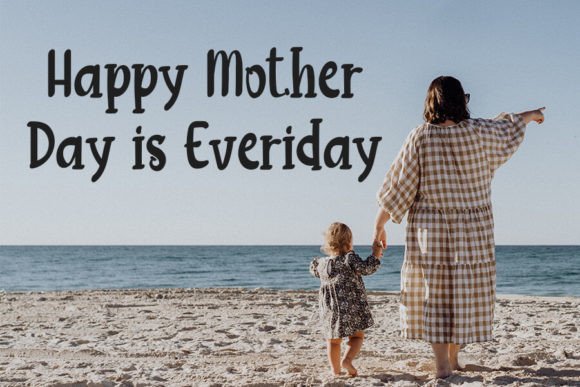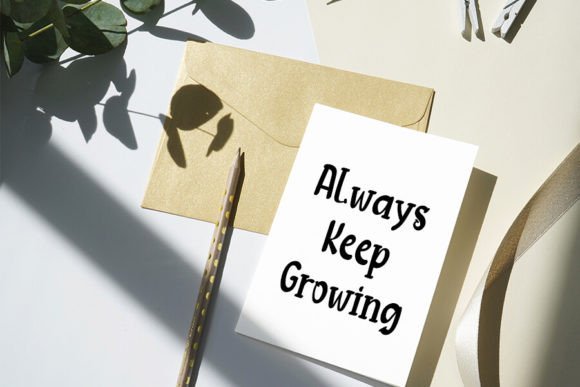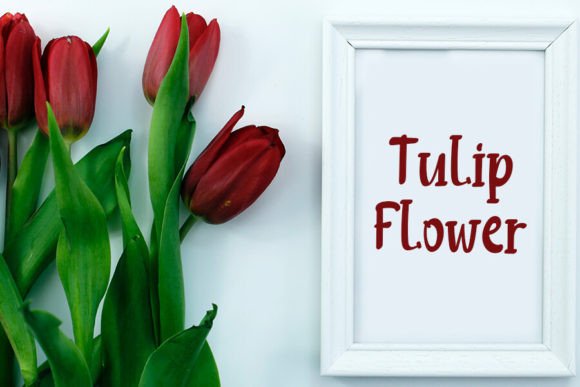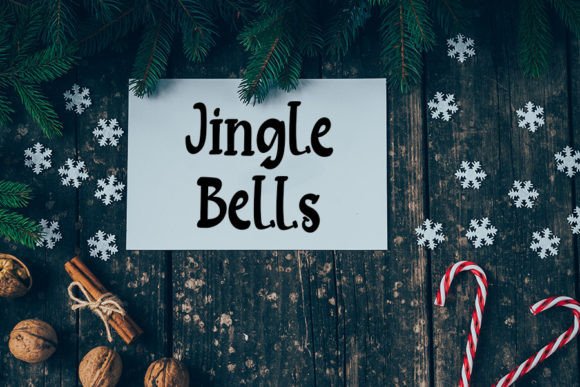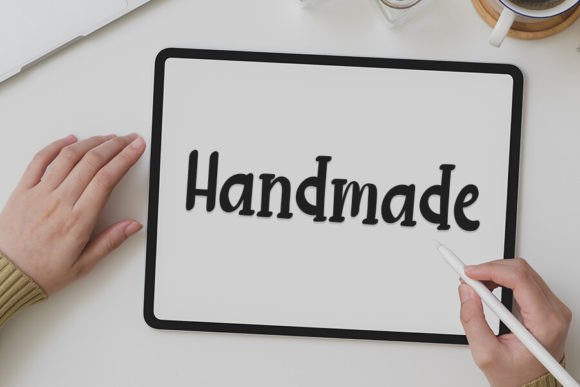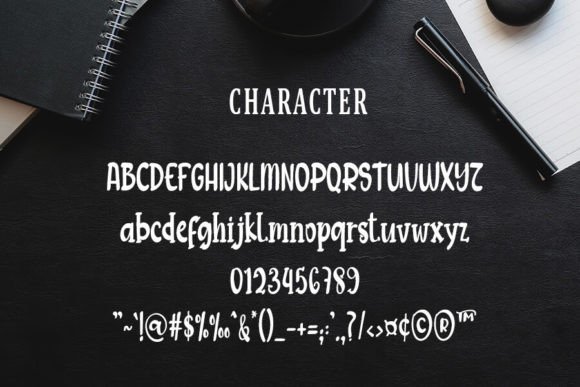
Introducing Blue Beach Font: The Ultimate Holiday Typeface
The holiday season is upon us, and what better way to get into the spirit than with a festive and merry typeface? Look no further than Blue Beach Font, a decorative and whimsical font that’s perfect for adding a touch of enchantment to your designs. In this article, we’ll dive into the world of Blue Beach Font and explore its features, benefits, and uses.
Blue Beach Font is a holiday-themed typeface that’s designed to capture the magic and wonder of the season. With its decorative elements and whimsical flair, this font is sure to add a cheerful and nostalgic ambiance to your words. Whether you’re creating greeting cards, gift tags, or holiday-themed projects, Blue Beach Font is the perfect choice.
Key Features of Blue Beach Font
- Decorative Elements: The font features decorative elements that add a touch of festivity and whimsy to your designs.
- Whimsical Flair: Blue Beach Font has a playful and whimsical flair that’s perfect for creating holiday-themed projects.
- Holiday-Themed: The font is specifically designed for the holiday season, making it perfect for Christmas, Hanukkah, or any other winter holiday.
Uses for Blue Beach Font
Blue Beach Font is a versatile typeface that can be used in a variety of ways. Here are some ideas to get you started:
- Greeting Cards: Create festive and personalized greeting cards for your loved ones.
- Gift Tags: Add a touch of whimsy to your gift tags with Blue Beach Font.
- Holiday-Themed Projects: Use the font to create holiday-themed projects, such as invitations, flyers, and brochures.
- Social Media Graphics: Add some holiday cheer to your social media graphics with Blue Beach Font.
Benefits of Using Blue Beach Font
There are many benefits to using Blue Beach Font in your designs. Here are a few:
- Customizable: Blue Beach Font is highly customizable, allowing you to create unique and personalized designs.
- Festive and Fun: The font adds a touch of festivity and fun to your designs, making them perfect for the holiday season.
- Nostalgic Ambiance: Blue Beach Font brings a nostalgic ambiance to your words, making them perfect for creating holiday-themed projects.
Tips for Using Blue Beach Font
Here are some tips for using Blue Beach Font in your designs:
- Experiment with Different Sizes: Try out different font sizes to see what works best for your design.
- Pair with Other Fonts: Pair Blue Beach Font with other fonts to create a unique and interesting design.
- Use Decorative Elements: Take advantage of the font’s decorative elements to add a touch of festivity to your designs.
- Have Fun: Most importantly, have fun and be creative with Blue Beach Font!